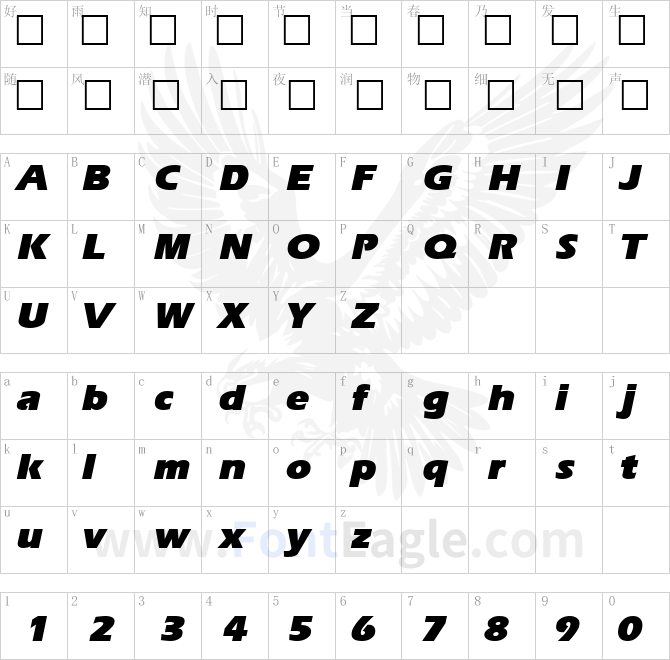
- Font name:ErgoeBlack
- Font Subfamily ID:WSI: ErgoeBlack Italic
- Font Full Name:ErgoeBlack Italic
- Font Version:WSI: 11/27/92
- Postscript:ErgoeBlack Italic